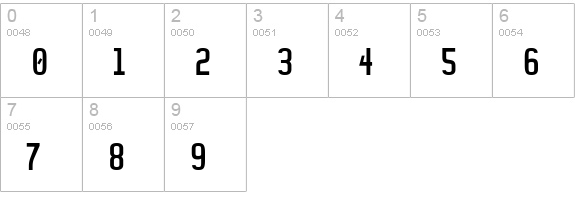
FauxCRA-Condensed is a distinctive, condensed-width variant in the FauxCRA typeface family \xE2\x80\x94 well suited to design and typography projects.
FauxCRA-Condensed font is a modern sans-serif typeface that exudes sophistication and elegance. Its sleek and streamlined design makes it perfect for a wide range of design projects, from branding to editorial layouts. With its condensed style, FauxCRA-Condensed font is ideal for creating eye-catching headlines and bold statements. What sets FauxCRA-Condensed font apart is not just its stylish appearance, but also the fact that it is available for free download at FontsMarket.com. This means that you can elevate your designs without having to worry about breaking the bank. Whether you're a professional designer looking for a versatile typeface or a hobbyist seeking to add a touch of class to your projects, FauxCRA-Condensed font is the perfect choice. Download it today and start creating stunning visuals that are sure to impress.